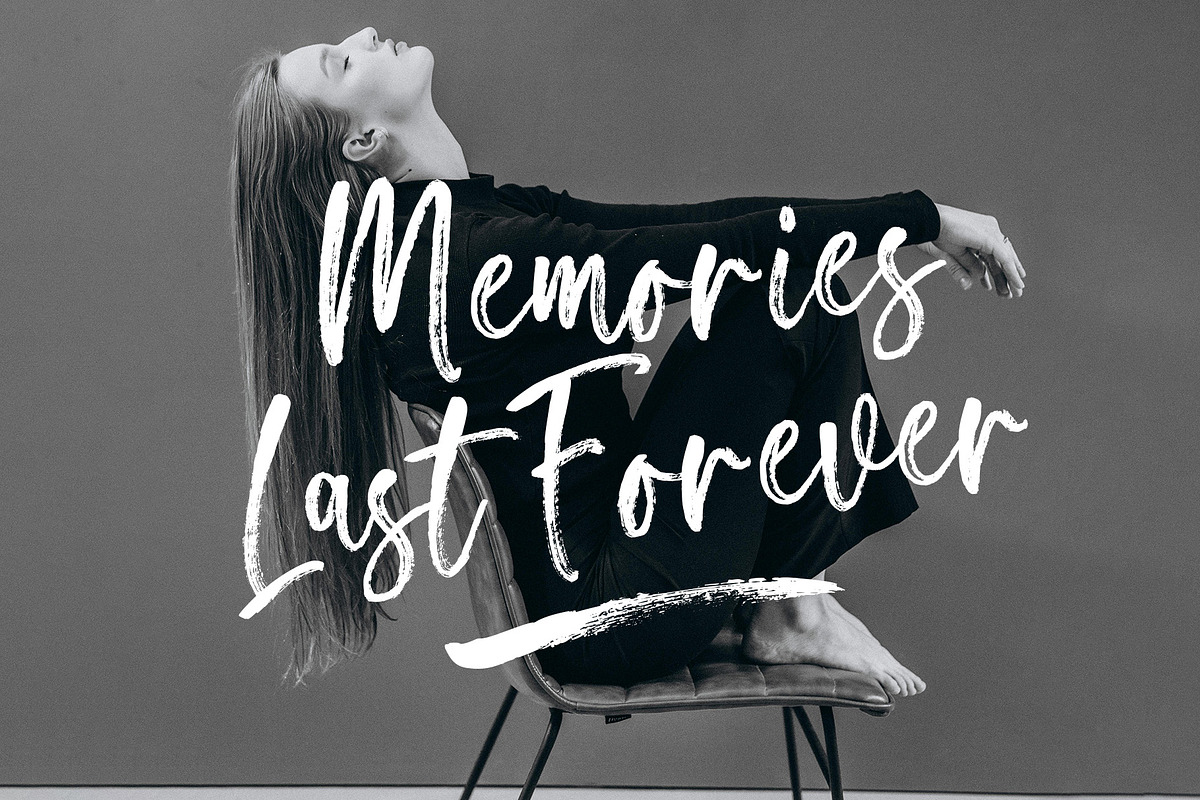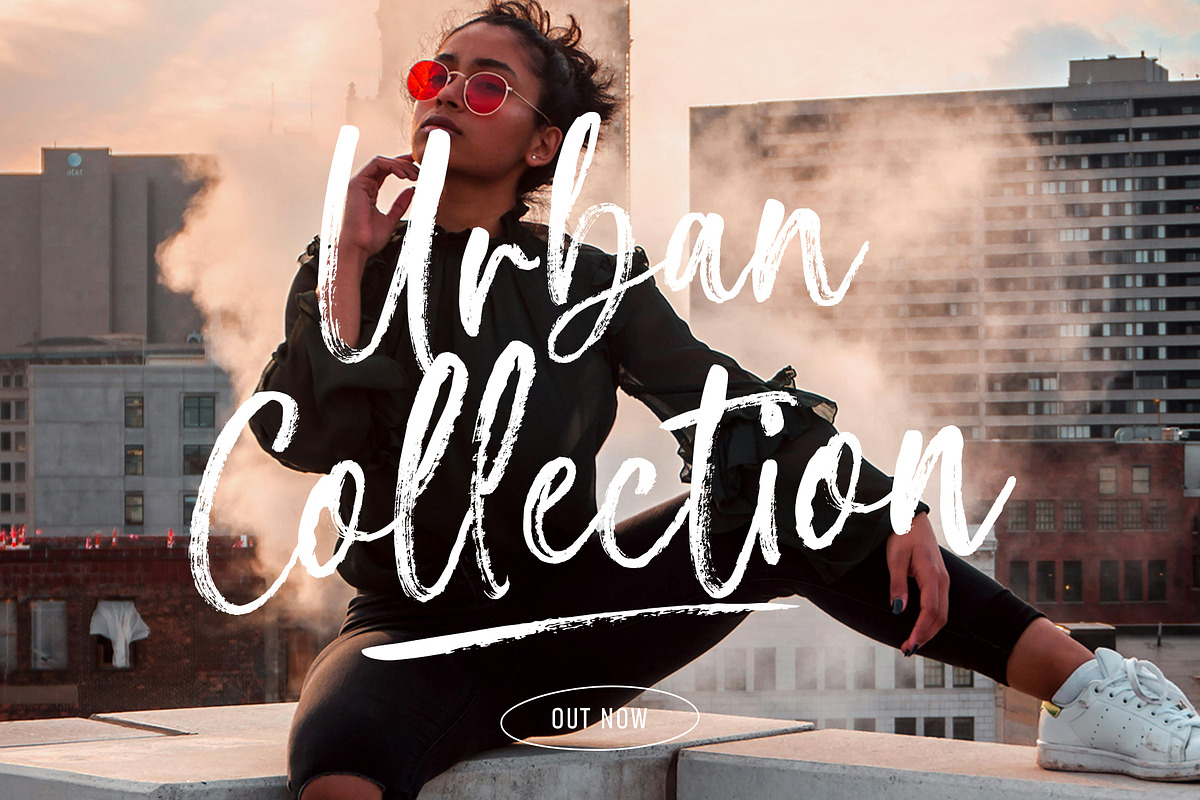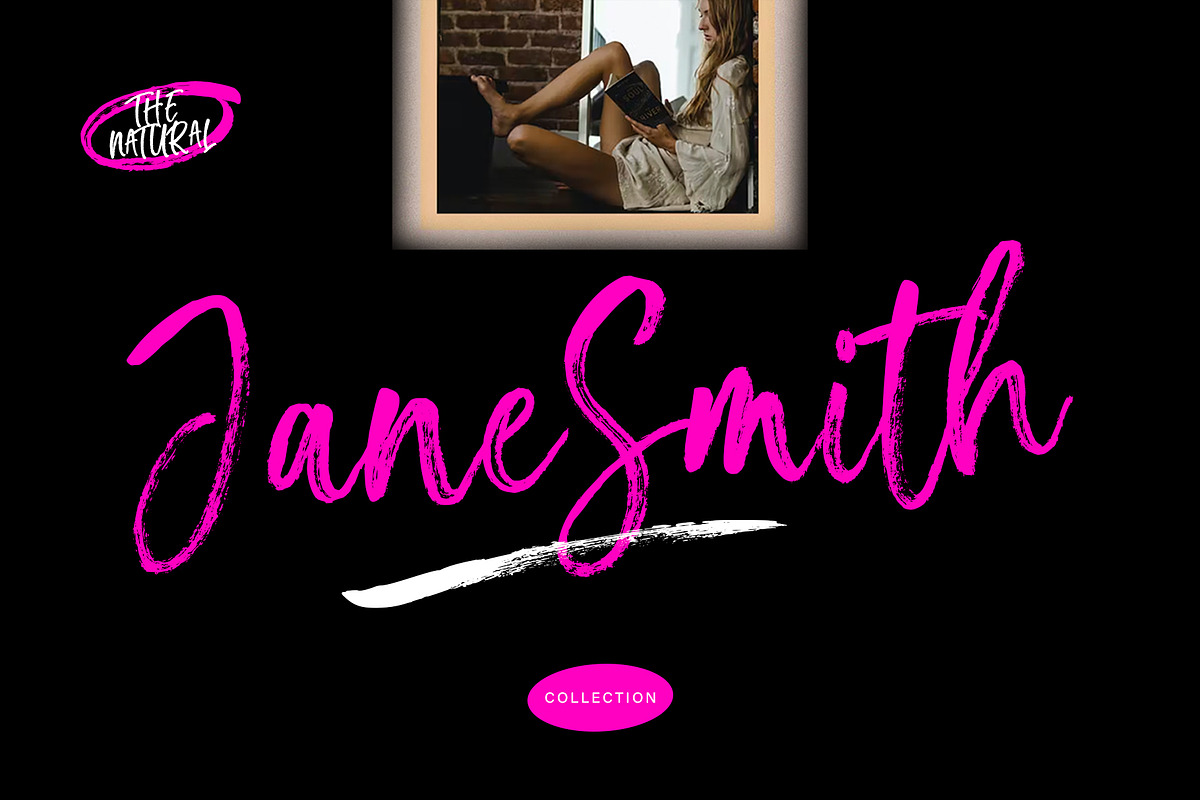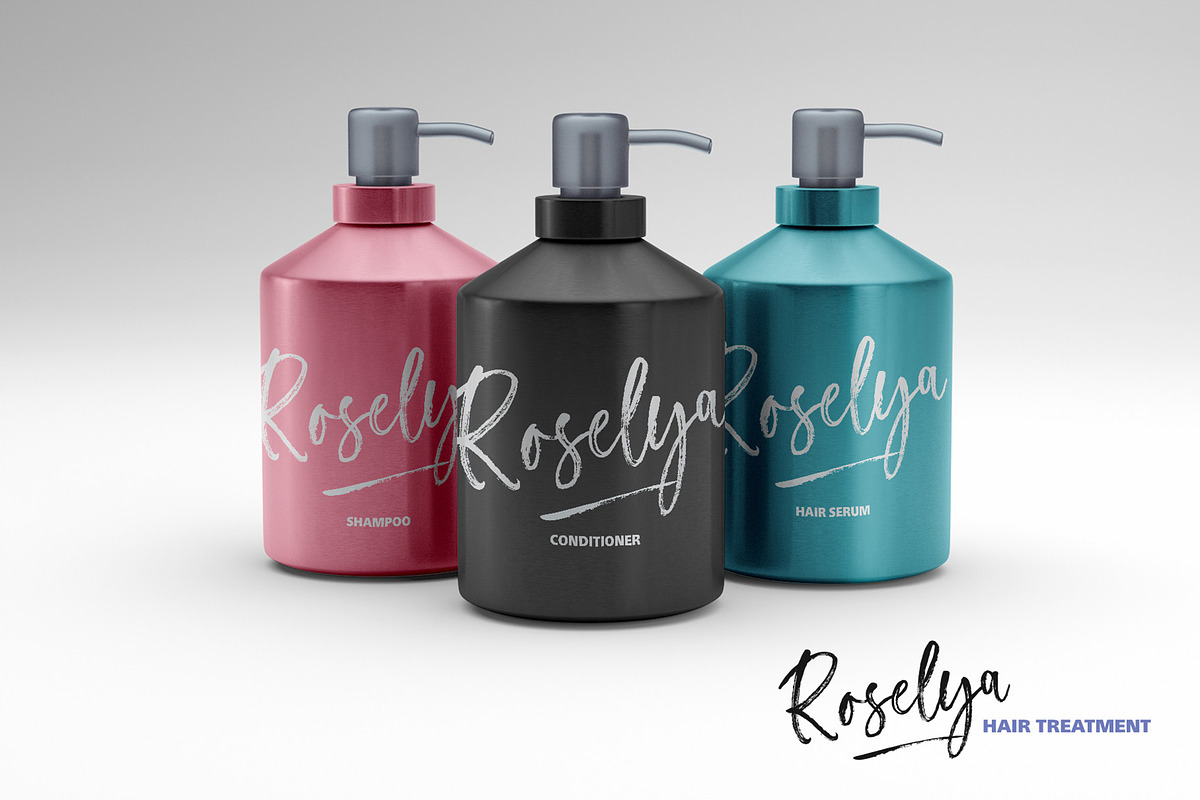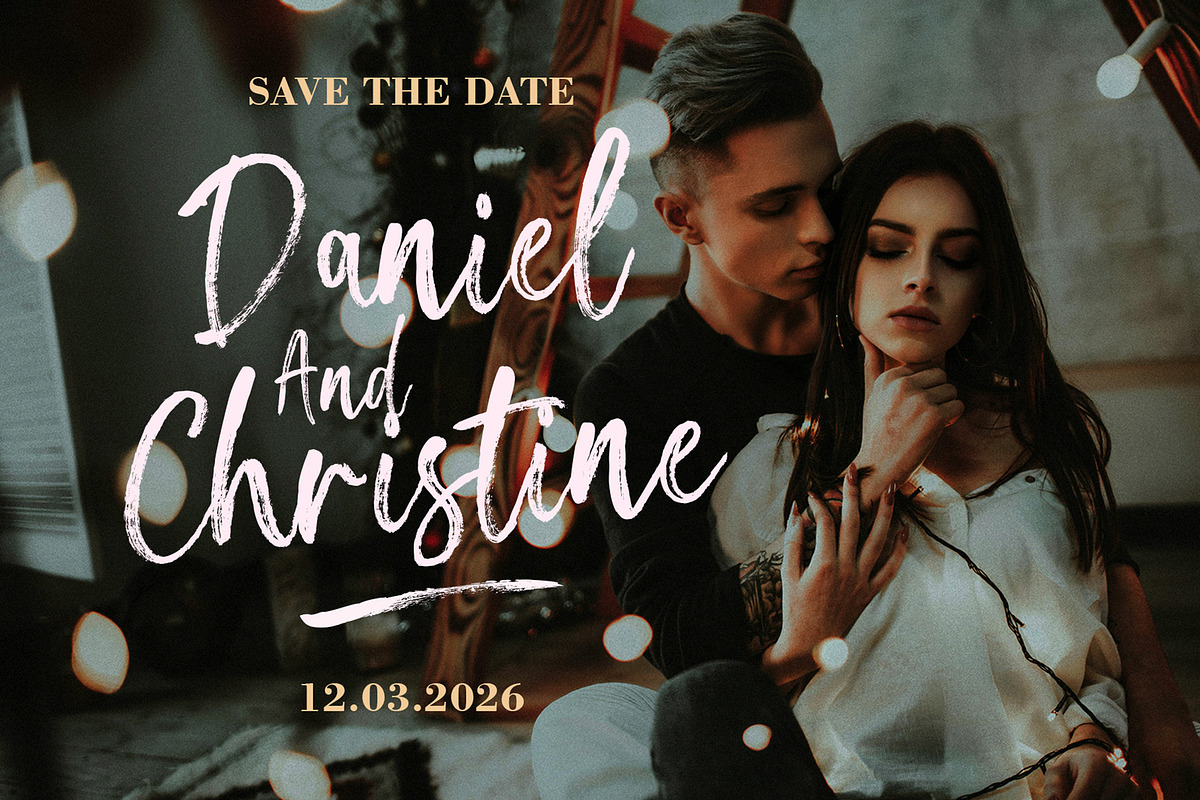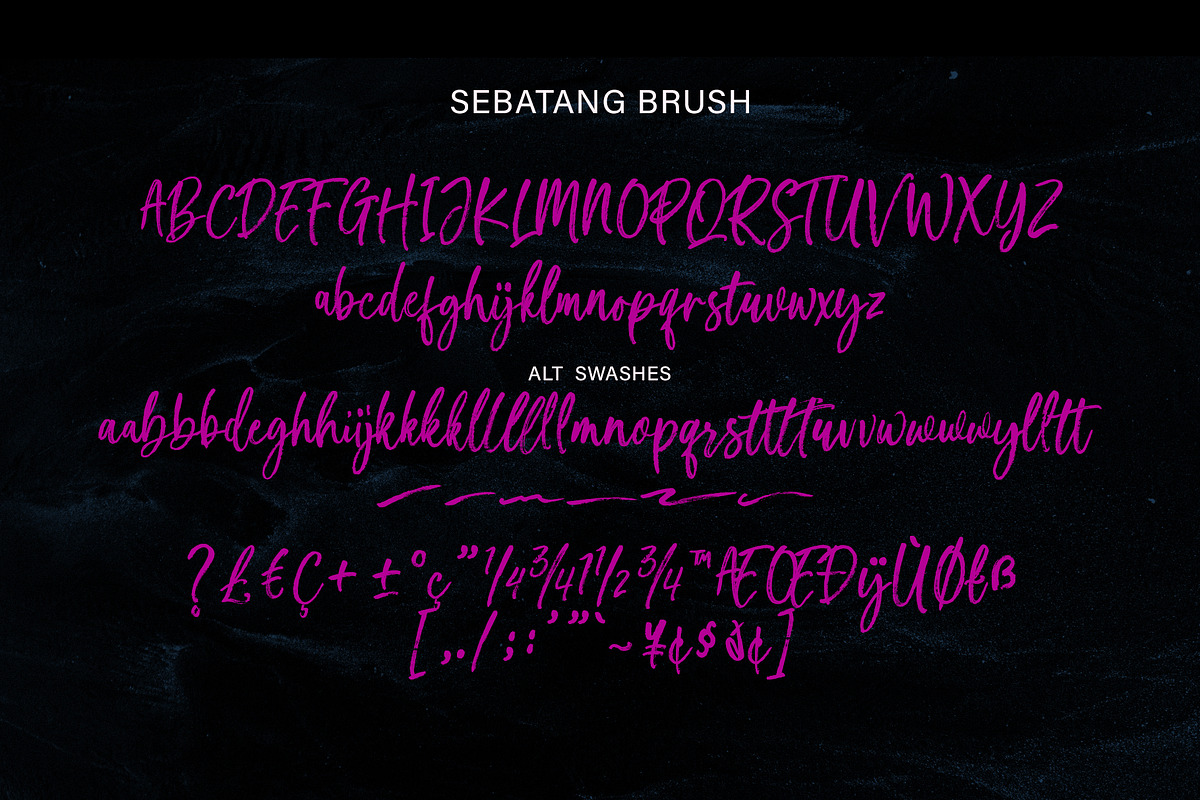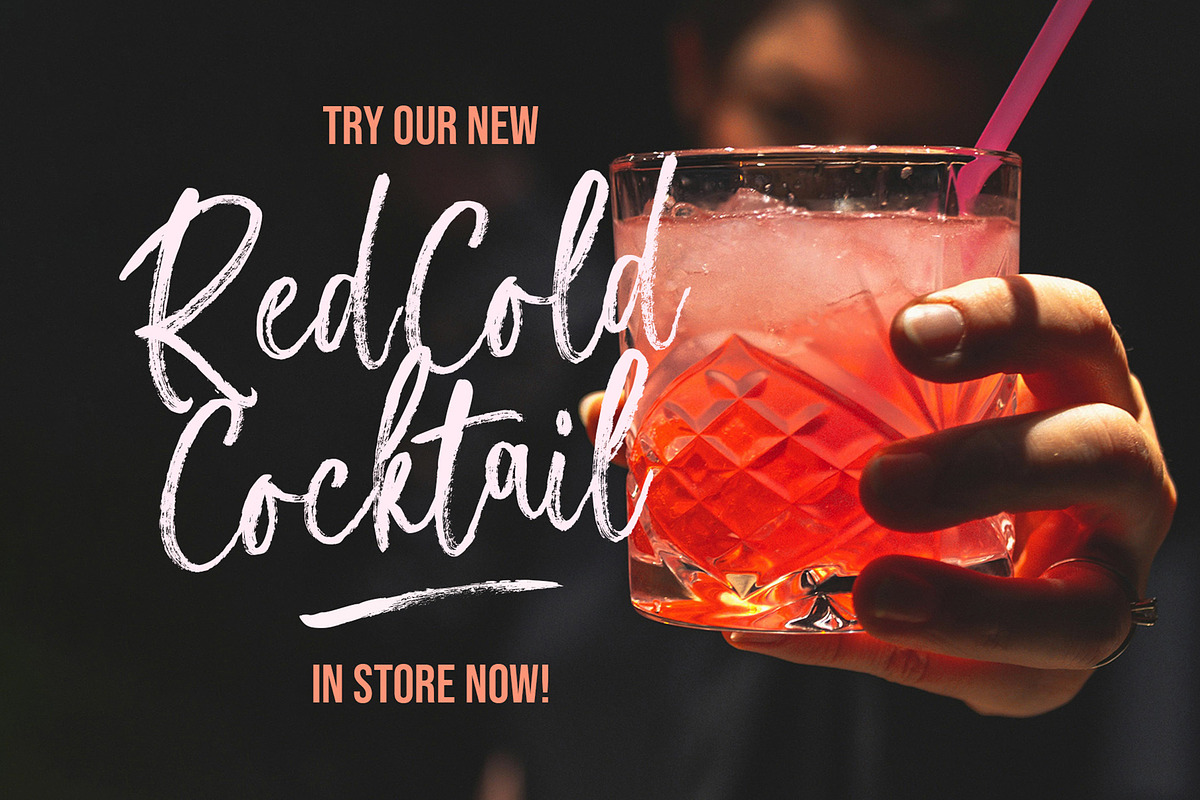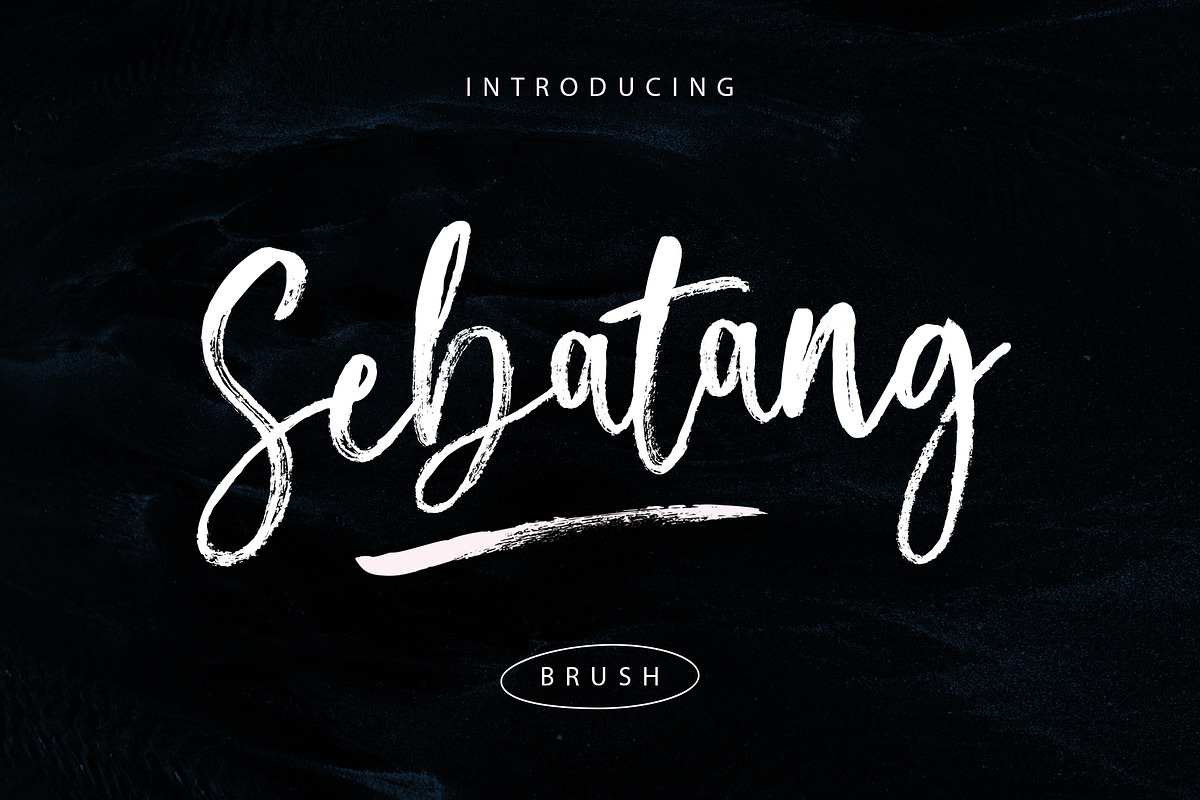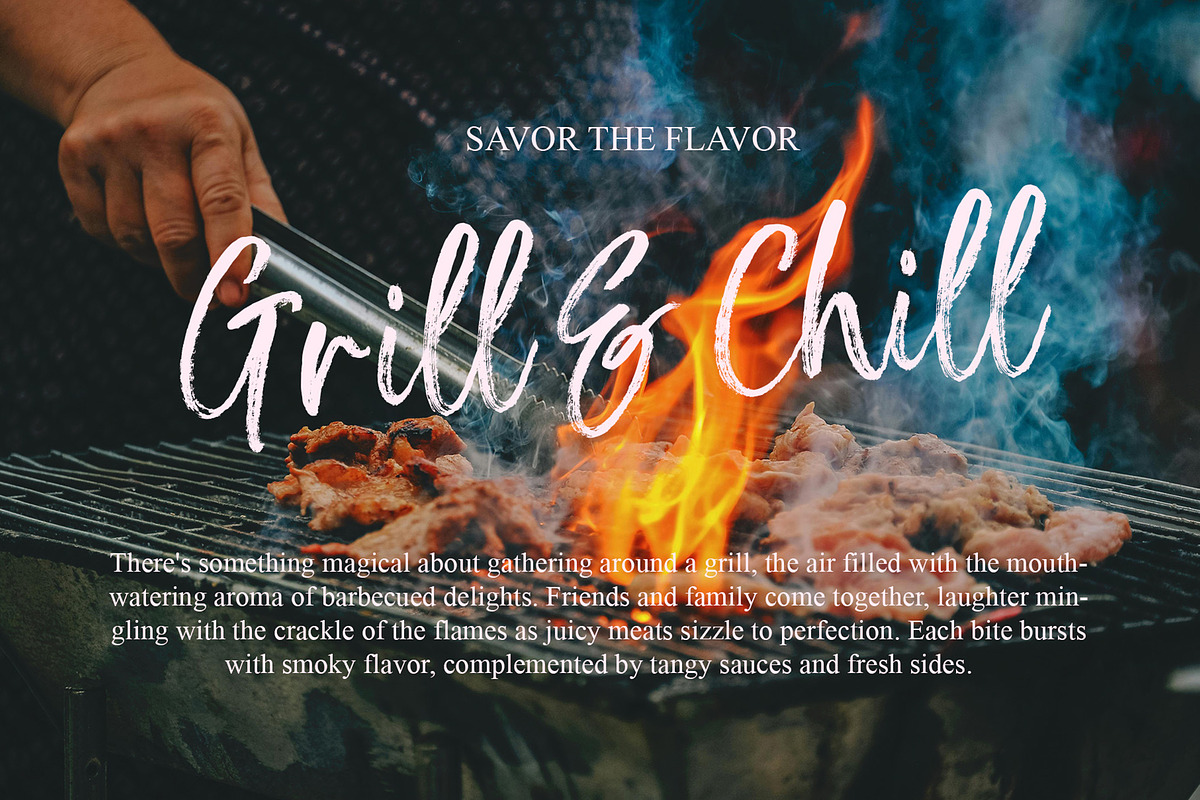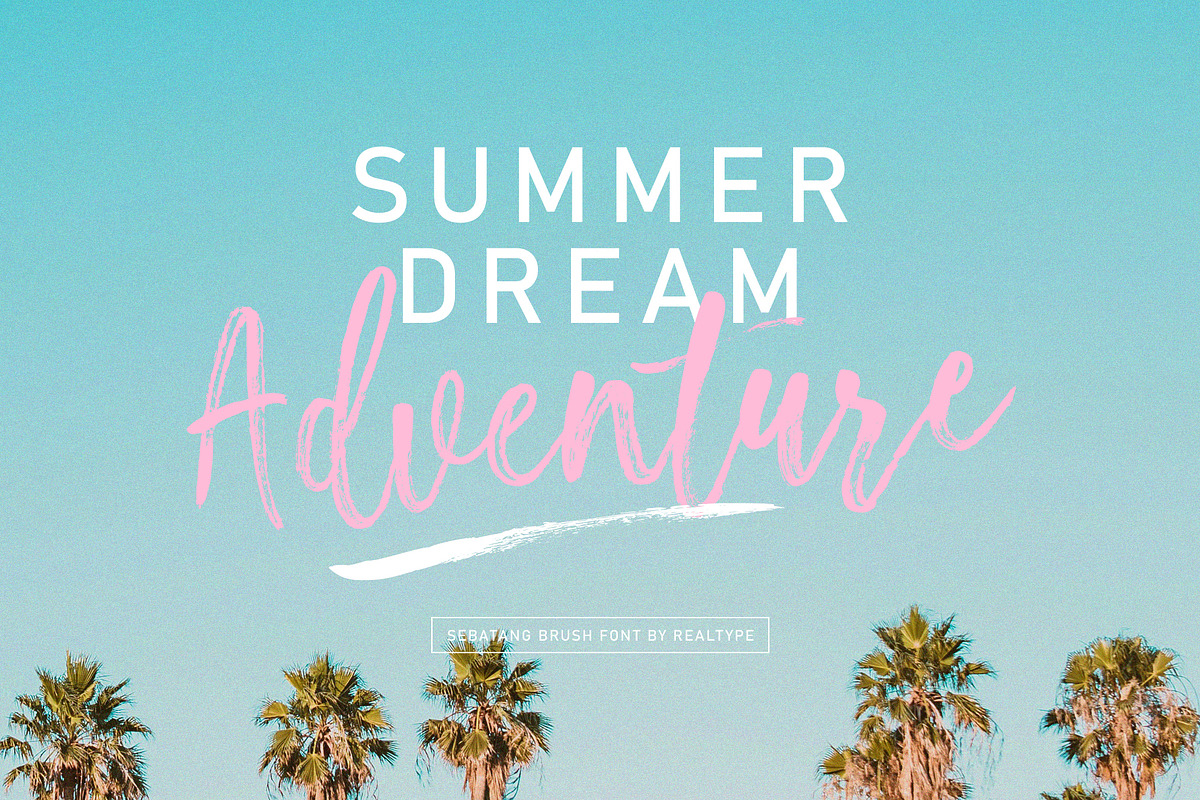
Sebatang Brush
Sebatang Brush is a handwritten font to get the best texture for each letter. Sebatang Brush is designed to perfection, each letter character will make your design strong and charming. Each letter and symbol is painted using the finest brushes and ink. Sebatang Brush contains upper and lower case characters, numbers and various punctuation marks that are ready for you to use with unique and charming characters.
Sebatang Brush Font is suitable for any modern design such as for cards, invitations, announcements, seasonal designs, social media promotions, web design, branding and logo styling and more.